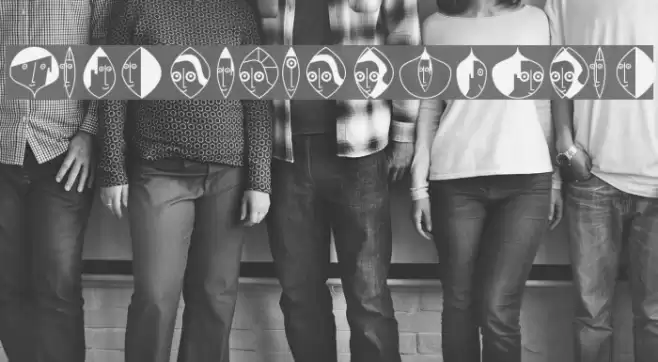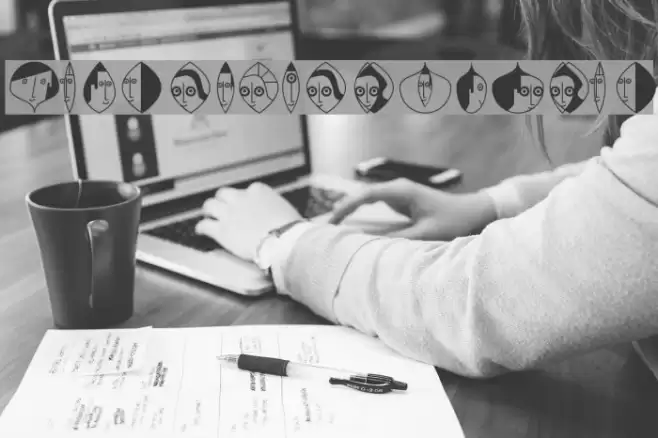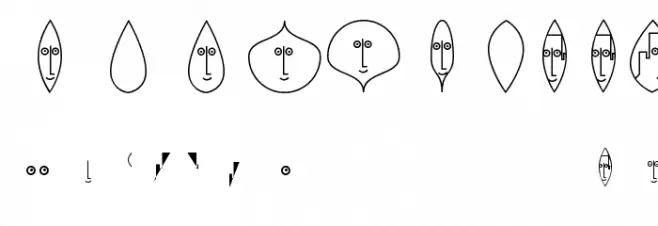
HeadsConstructed Font
HeadsConstructed Description
Highly decorative and abstract typeface where each character is formed by stylized, geometric faces with varying expressions and shapes, using bold lines and filled areas for contrast.
Abstract, face-themed decorative font with geometric shapes from Uncategorized fonts.
- Proposed Projects: Art posters, album covers, editorial illustrations, branding for creative industries, event invitations.
- Overall Style: Decorative, Abstract, Artistic
- Use Case: Logos, Headlines, Posters, Artistic projects